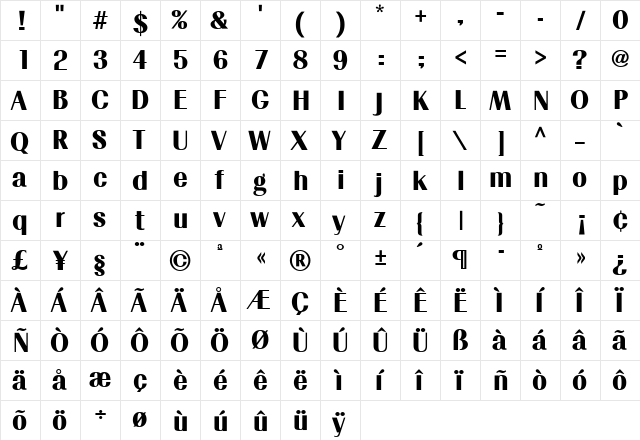
Renoir Regular
Design Context for Renoir Typeface
Renoir takes a measured approach to typography — its balanced proportions and neutral character make it a reliable workhorse for both digital and print work.